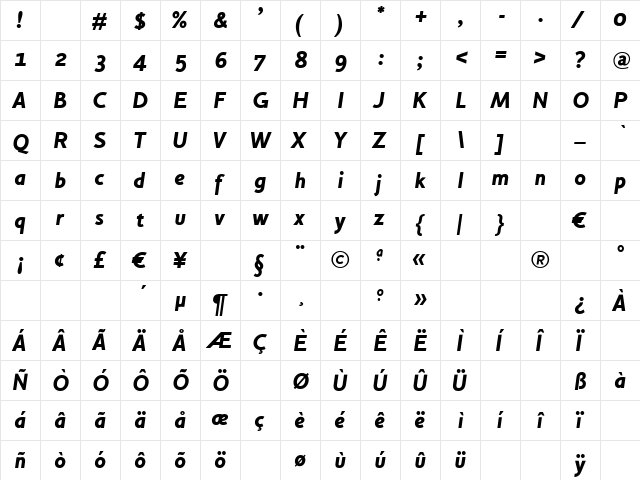
HouschkaAltBlackItalic Regular
Design Context for HouschkaAltBlackItalic Typeface
HouschkaAltBlackItalic is a composed and adaptable typeface that performs quietly and consistently across a wide range of design contexts. Its italic angle brings a sense of urgency and motion to the letterforms.
Pro Tip: Use HouschkaAltBlackItalic for emphasis, pull quotes, and subheadings where its slanted energy can add rhythm to the layout.